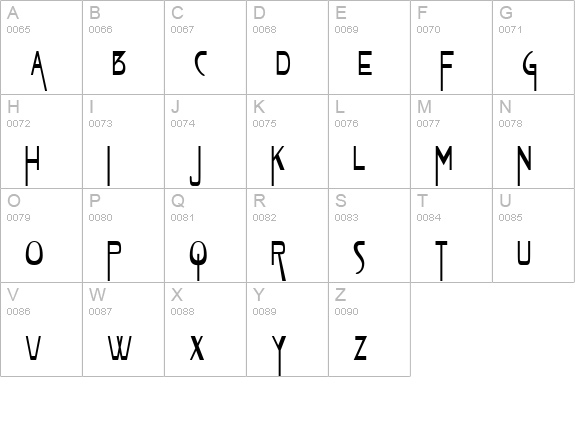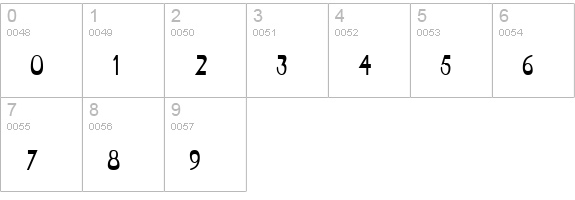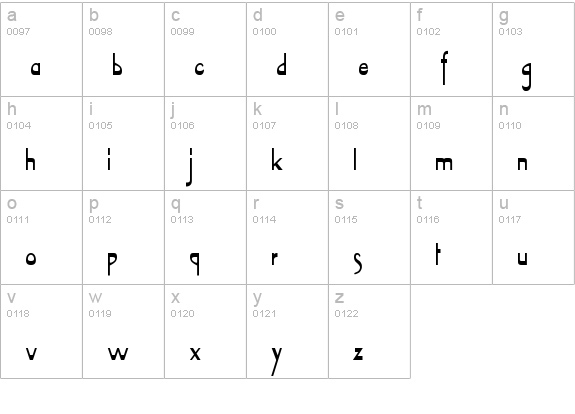
TabletCondensed Bold Font Details
TabletCondensed Bold is a strong, high-contrast variant in the TabletCondensed typeface family \xE2\x80\x94 well suited to headlines, attention-grabbing titles, and strong calls-to-action.
TabletCondensed Bold is a striking and versatile font that exudes confidence and strength. With its condensed design, it commands attention and adds a touch of sophistication to any project. Whether you're creating bold headlines, eye-catching logos, or professional-looking presentations, TabletCondensed Bold is the perfect choice. This font features clean lines and strong, bold letterforms that make a statement. Its condensed design allows for maximum impact in limited space, making it ideal for posters, banners, and other large-scale designs. The bold weight adds emphasis and ensures readability, even at smaller sizes. One of the best things about TabletCondensed Bold is that it is freely available to download at FontsMarket.com. This means that you can easily access this exceptional font without any cost. It's an excellent opportunity for designers, students, and anyone looking to enhance their projects with a powerful typeface. Whether you're a professional graphic designer or a casual enthusiast, TabletCondensed Bold is a must-have font in your collection. Its versatility and boldness make it suitable for a wide range of applications, from branding and advertising to web design and print materials. Don't miss out on this incredible font. Download TabletCondensed Bold today from FontsMarket.com and unleash its potential in your creative endeavors. It's time to take your designs to the next level with this captivating and freely available font.